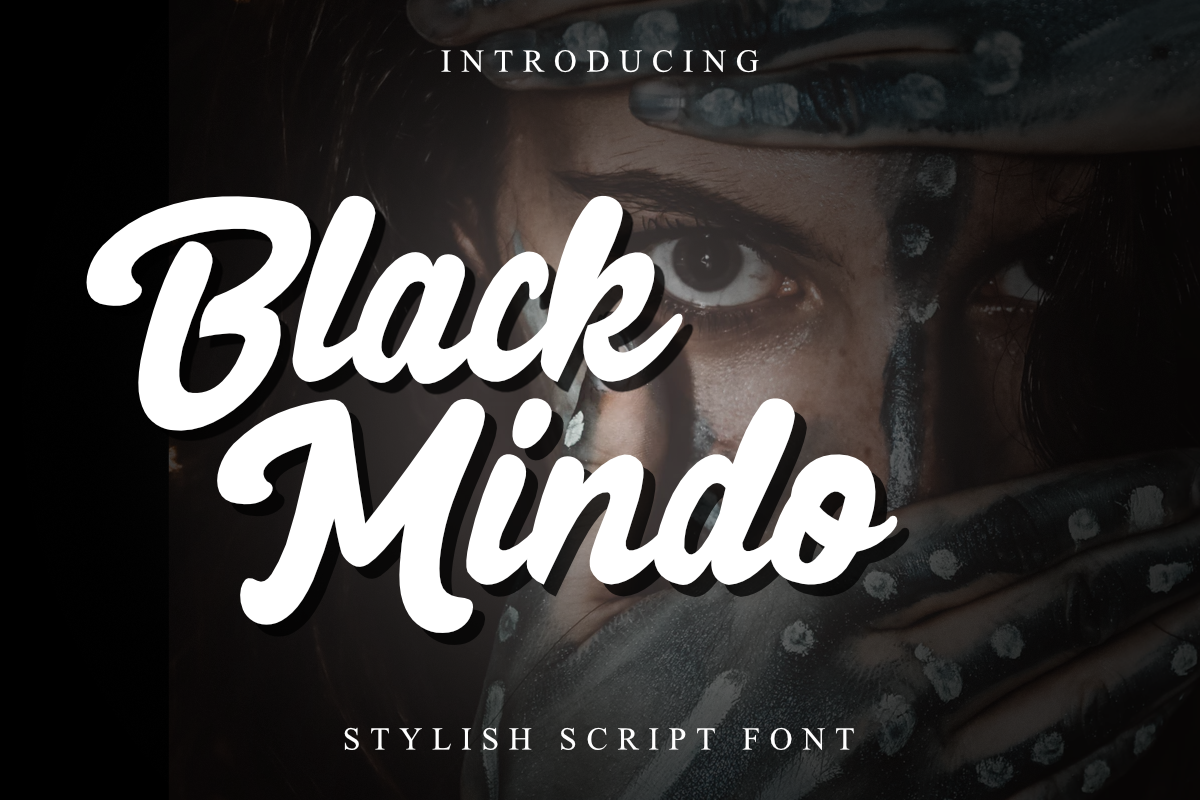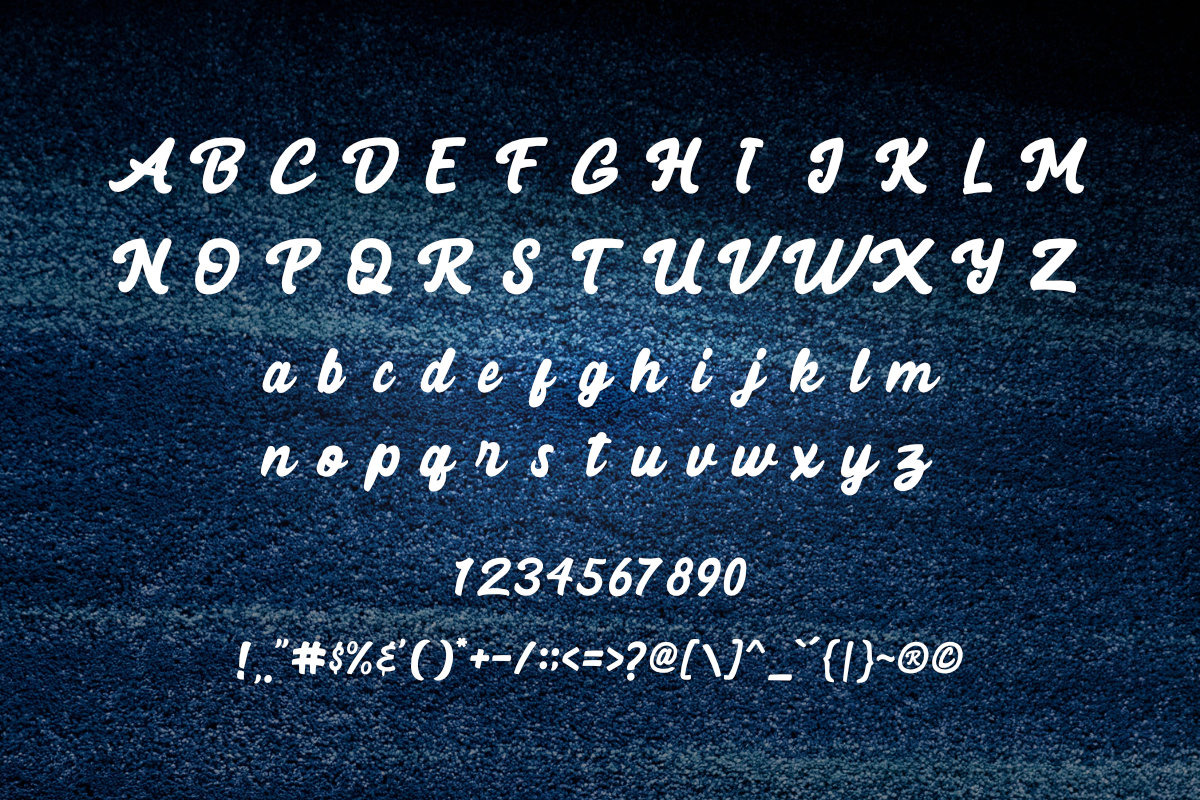
Black Mindo Font
Black Mindo is a modern bold handlettering script with strong style and dramatic movement. It's allowing you to create beautiful hand-made typography in an instant. Black Mindo is to use for any kind of design such as branding projects, logo, wedding designs, social media posts, advertisements, product packaging, product designs, label, photography, watermark, invitation, stationery and any projects that need handlettering taste.